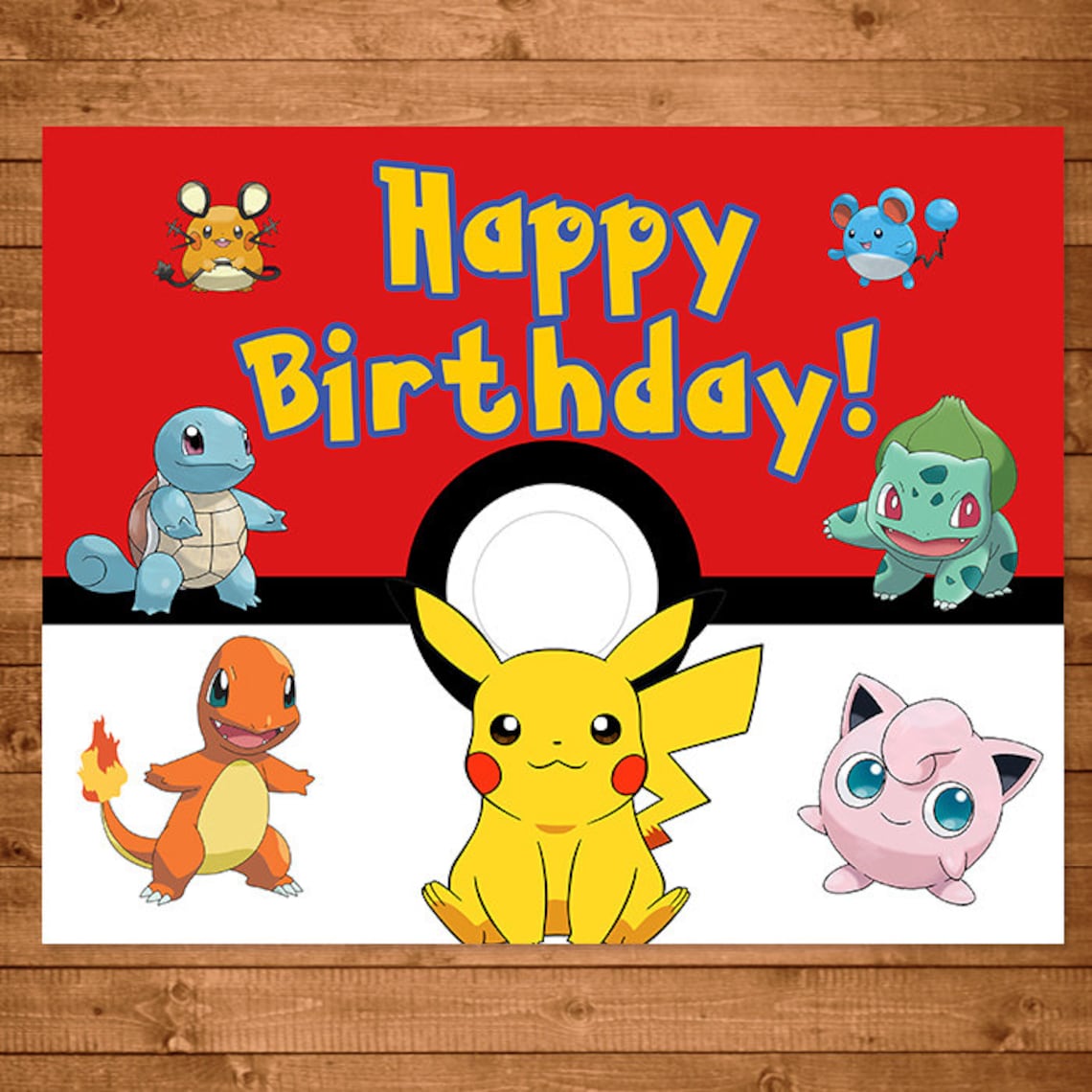
Happy Birthday Pokemon Font
Happy Birthday Pokemon Font - Create a text effect pokemon happy birthday 3d with our online custom font generator. Design your own text with the iconic pokemon font! The font is available in two styles, pokemon solid and pokemon. Transform your text into captivating visual masterpieces with our innovative font style text effect generator. Generate your own custom pokemon designs with these fonts styled after pikachu and all your favorite pocket monster characters. Create a text effect pokémon happy birthday with our online custom font generator. Customize font style, size, color, and background with our free pokemon.
Create a text effect pokémon happy birthday with our online custom font generator. The font is available in two styles, pokemon solid and pokemon. Transform your text into captivating visual masterpieces with our innovative font style text effect generator. Generate your own custom pokemon designs with these fonts styled after pikachu and all your favorite pocket monster characters. Customize font style, size, color, and background with our free pokemon. Create a text effect pokemon happy birthday 3d with our online custom font generator. Design your own text with the iconic pokemon font!
Create a text effect pokémon happy birthday with our online custom font generator. Design your own text with the iconic pokemon font! The font is available in two styles, pokemon solid and pokemon. Generate your own custom pokemon designs with these fonts styled after pikachu and all your favorite pocket monster characters. Create a text effect pokemon happy birthday 3d with our online custom font generator. Customize font style, size, color, and background with our free pokemon. Transform your text into captivating visual masterpieces with our innovative font style text effect generator.
Design your own text with the iconic pokemon font! The font is available in two styles, pokemon solid and pokemon. Create a text effect pokemon happy birthday 3d with our online custom font generator. Customize font style, size, color, and background with our free pokemon. Create a text effect pokémon happy birthday with our online custom font generator.
Design your own text with the iconic pokemon font! Customize font style, size, color, and background with our free pokemon. Create a text effect pokemon happy birthday 3d with our online custom font generator. Create a text effect pokémon happy birthday with our online custom font generator. Transform your text into captivating visual masterpieces with our innovative font style text.
Create a text effect pokémon happy birthday with our online custom font generator. Generate your own custom pokemon designs with these fonts styled after pikachu and all your favorite pocket monster characters. Transform your text into captivating visual masterpieces with our innovative font style text effect generator. Design your own text with the iconic pokemon font! Customize font style, size,.
The font is available in two styles, pokemon solid and pokemon. Create a text effect pokemon happy birthday 3d with our online custom font generator. Design your own text with the iconic pokemon font! Customize font style, size, color, and background with our free pokemon. Generate your own custom pokemon designs with these fonts styled after pikachu and all your.
Create a text effect pokémon happy birthday with our online custom font generator. The font is available in two styles, pokemon solid and pokemon. Customize font style, size, color, and background with our free pokemon. Generate your own custom pokemon designs with these fonts styled after pikachu and all your favorite pocket monster characters. Design your own text with the.
Pokemon Happy Birthday Font
Create a text effect pokémon happy birthday with our online custom font generator. Customize font style, size, color, and background with our free pokemon. Design your own text with the iconic pokemon font! The font is available in two styles, pokemon solid and pokemon. Transform your text into captivating visual masterpieces with our innovative font style text effect generator.
Generate your own custom pokemon designs with these fonts styled after pikachu and all your favorite pocket monster characters. Create a text effect pokemon happy birthday 3d with our online custom font generator. Customize font style, size, color, and background with our free pokemon. Design your own text with the iconic pokemon font! Transform your text into captivating visual masterpieces.
Pokemon Font Alphabet
Generate your own custom pokemon designs with these fonts styled after pikachu and all your favorite pocket monster characters. Create a text effect pokémon happy birthday with our online custom font generator. Design your own text with the iconic pokemon font! The font is available in two styles, pokemon solid and pokemon. Transform your text into captivating visual masterpieces with.
Customize font style, size, color, and background with our free pokemon. Design your own text with the iconic pokemon font! Create a text effect pokemon happy birthday 3d with our online custom font generator. The font is available in two styles, pokemon solid and pokemon.
Create A Text Effect Pokémon Happy Birthday With Our Online Custom Font Generator.
Transform your text into captivating visual masterpieces with our innovative font style text effect generator.